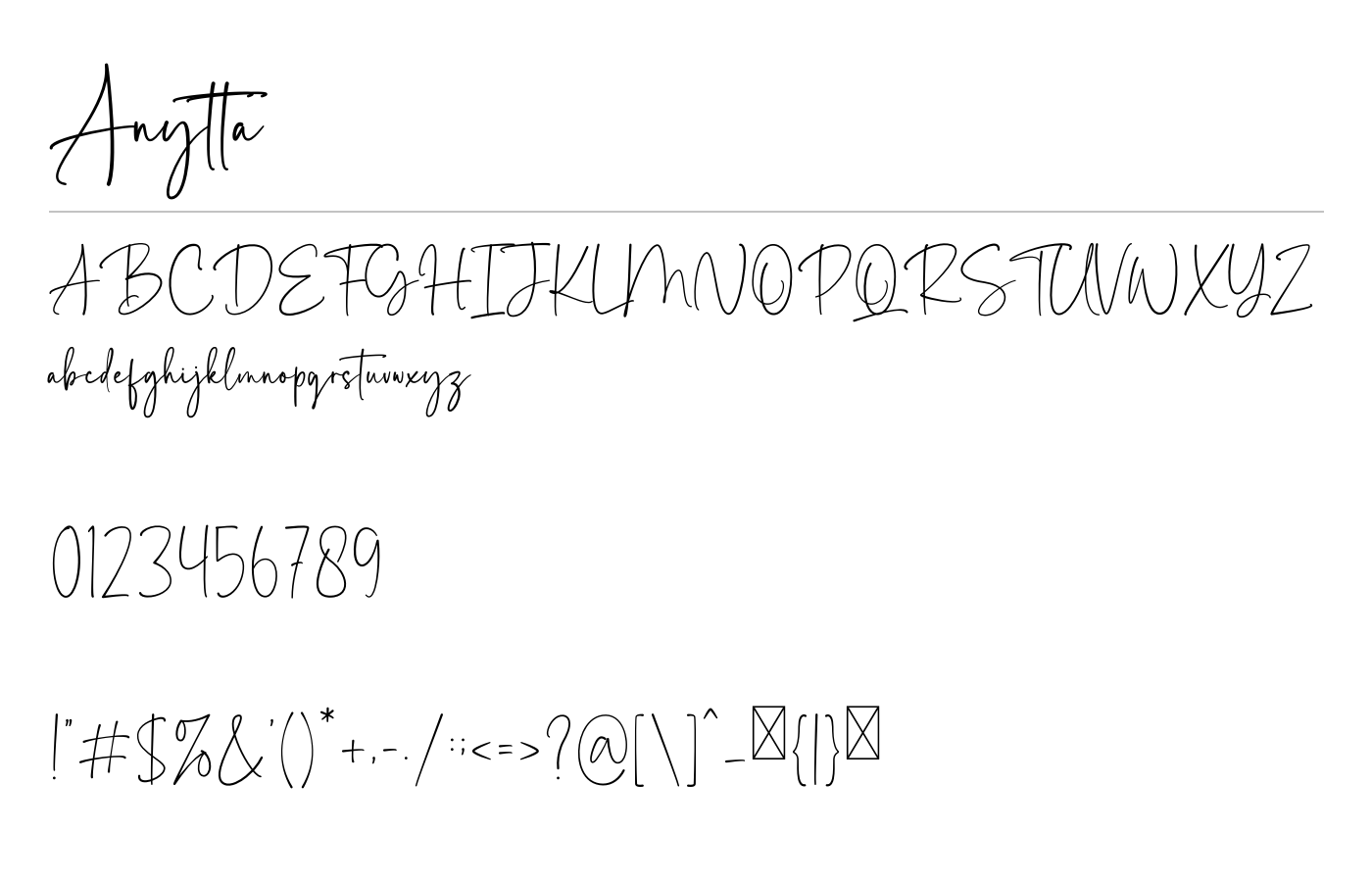
Anytta is a delicate, handwritten script font characterized by its thin, elegant lines and a natural, flowing style that mimics authentic penmanship. Its tall, narrow letterforms with subtle loops and smooth strokes give it a graceful yet casual feel, making it perfect for personal branding, invitations, and creative projects that seek a touch of sophistication and warmth. This font works best in headlines, logos, and artistic designs where a refined, intimate atmosphere is desired.
Anytta Font
About Anytta Font
| Font family | Anytta Font |